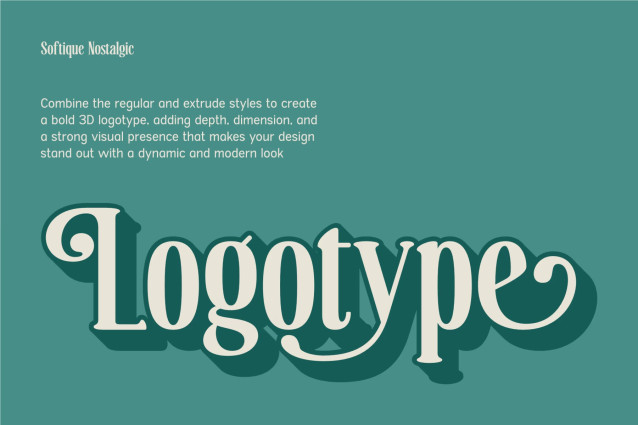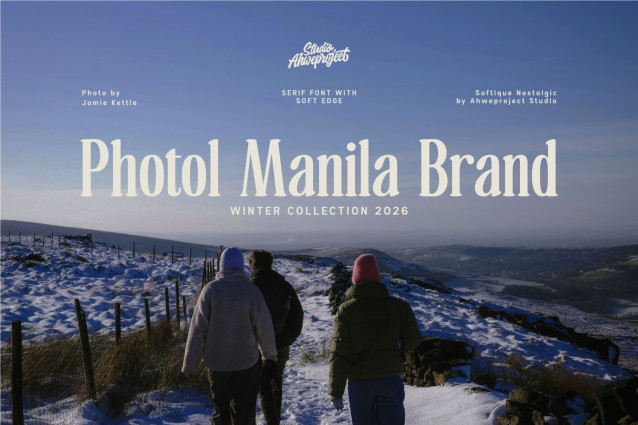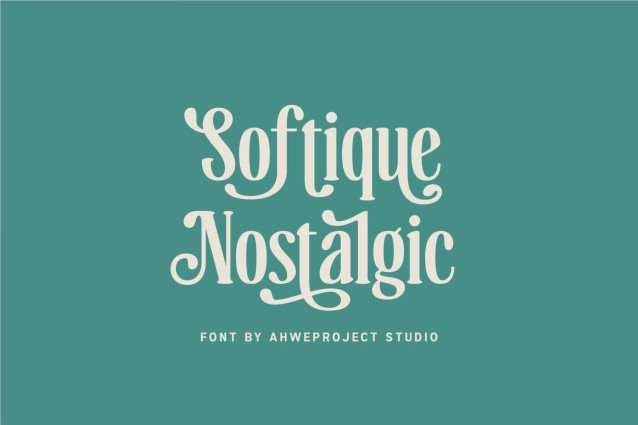
Softique Nostalgic Font
Softique Nostalgic Font is an elegant vintage-inspired font that brings warmth, charm, and timeless beauty into your designs. Crafted with smooth curves and distinctive character details, this typeface is perfect for branding, logos, packaging, wedding invitations, and social media content that needs a soft yet premium touch.
Blending classic nostalgia with a modern feel, Softique Nostalgic helps your work stand out with personality and emotion—without looking outdated. Whether you’re building a luxury brand or creating heartfelt designs, this font gives you a refined and memorable visual identity.